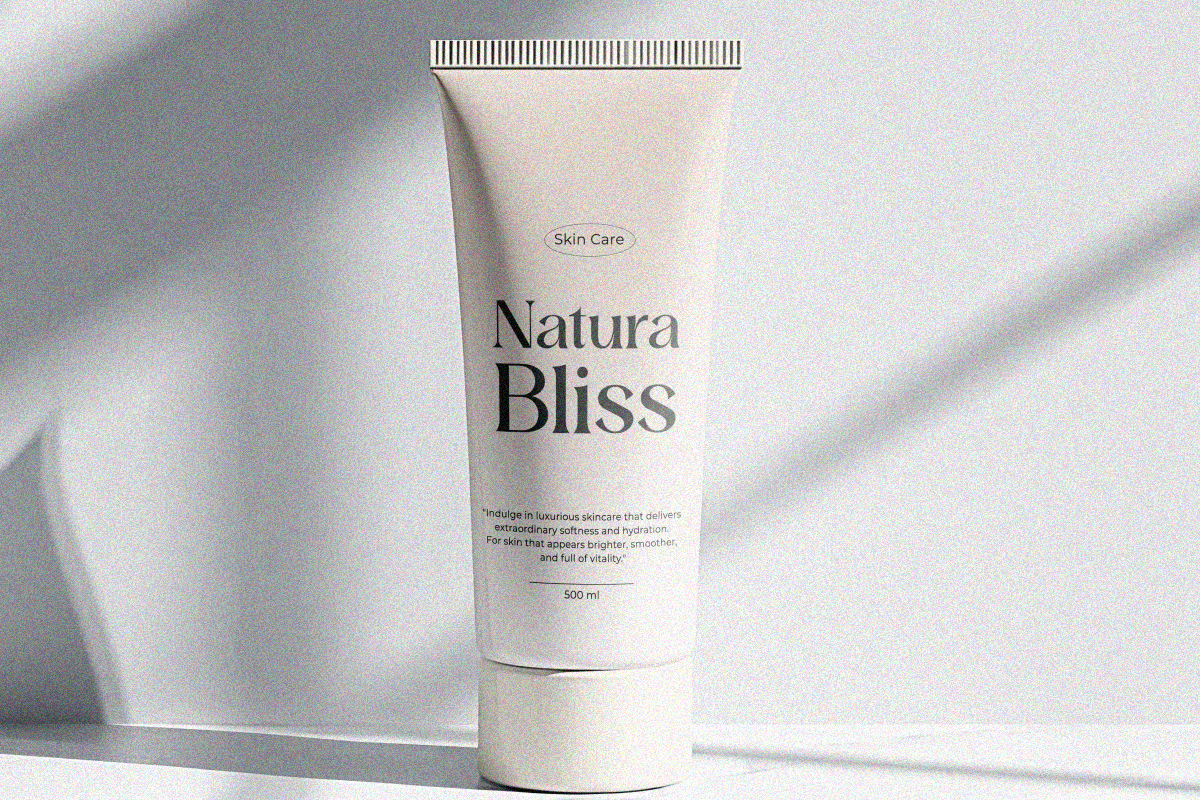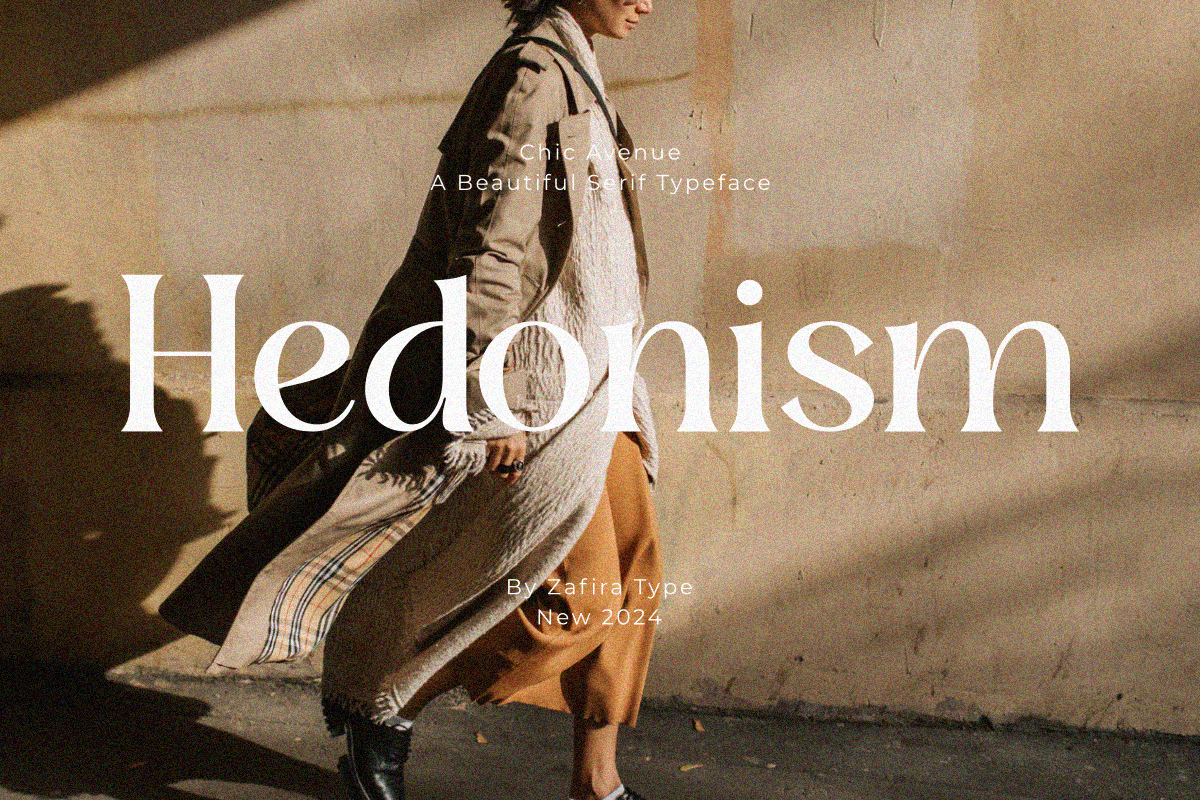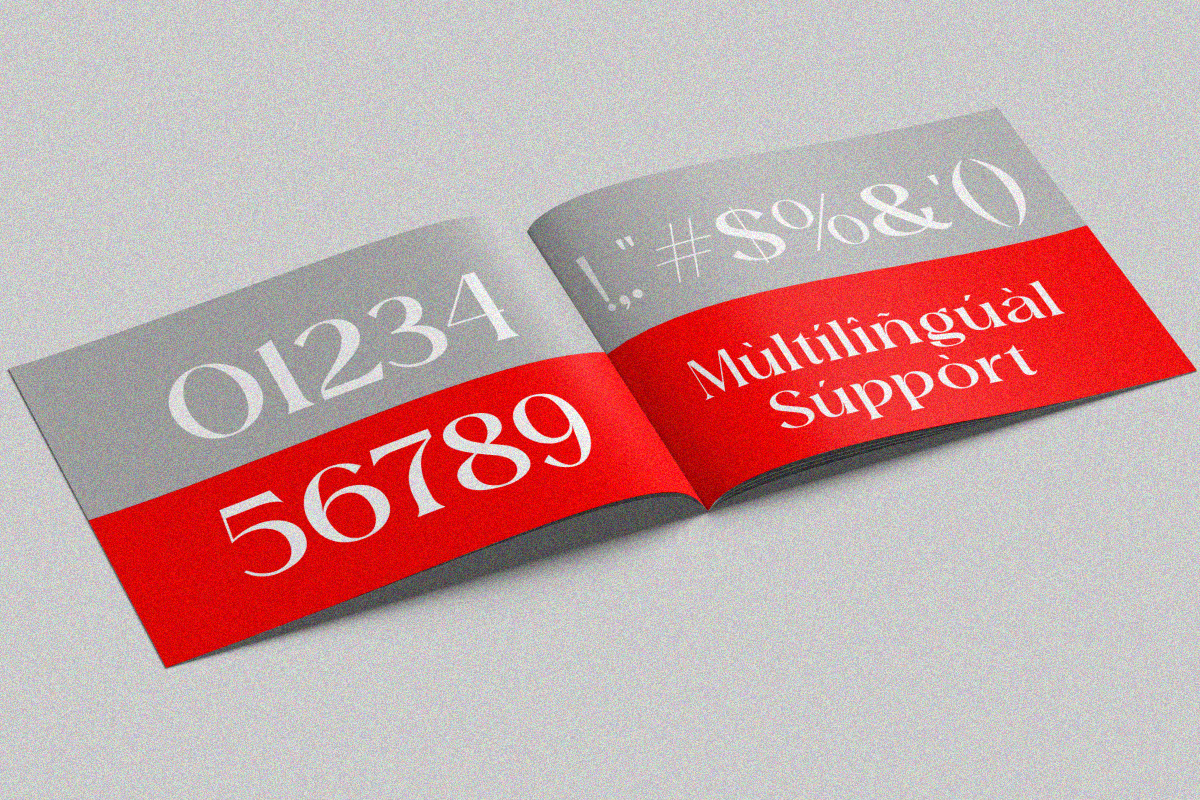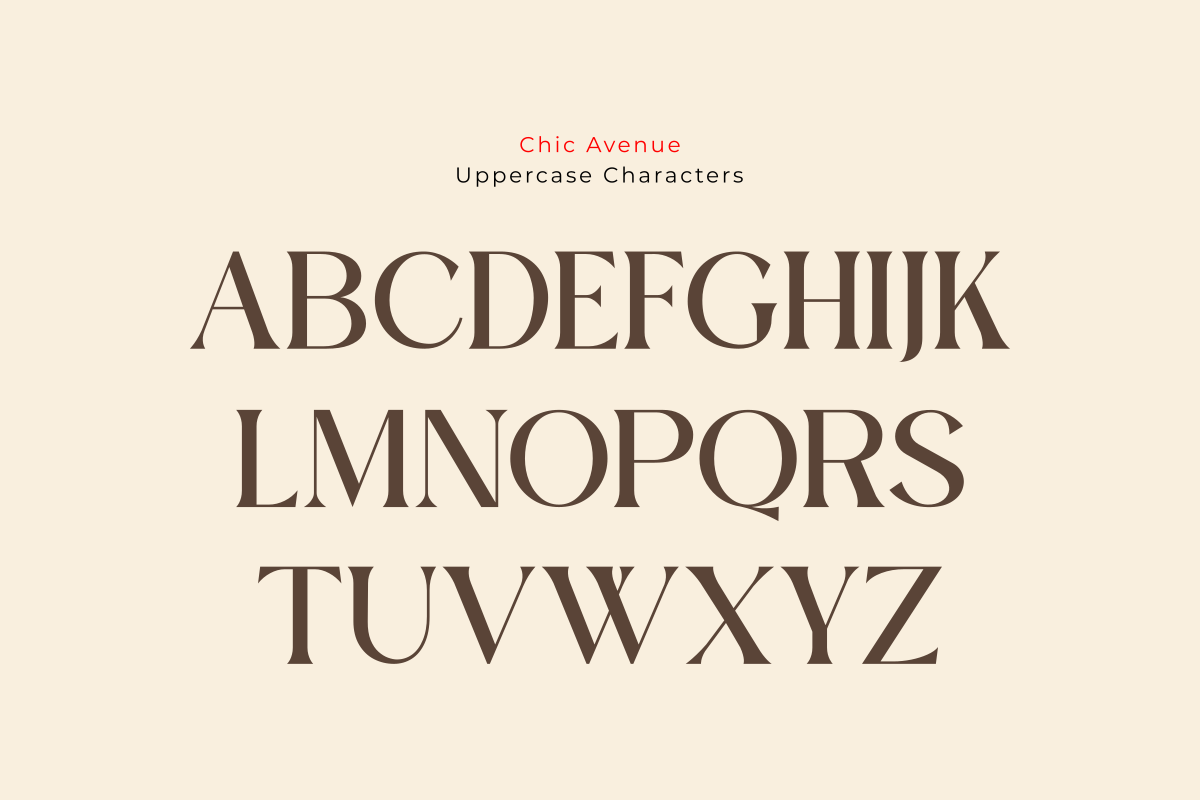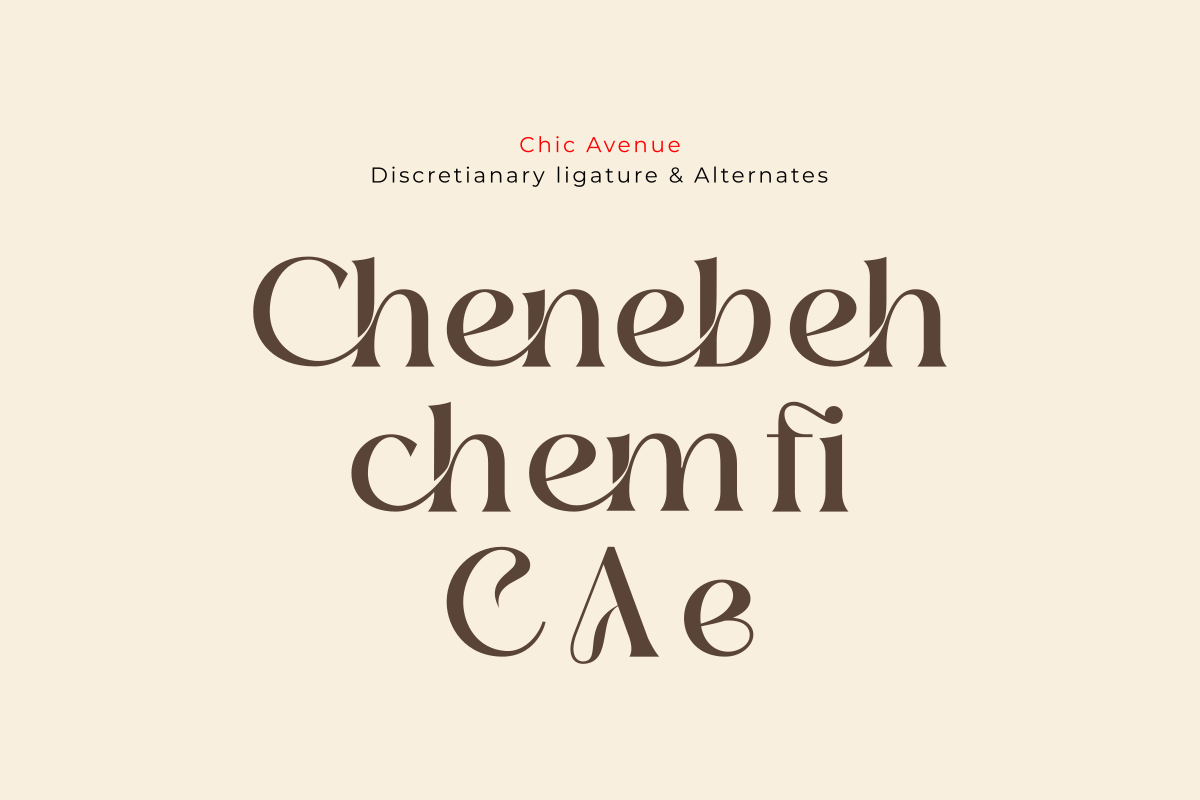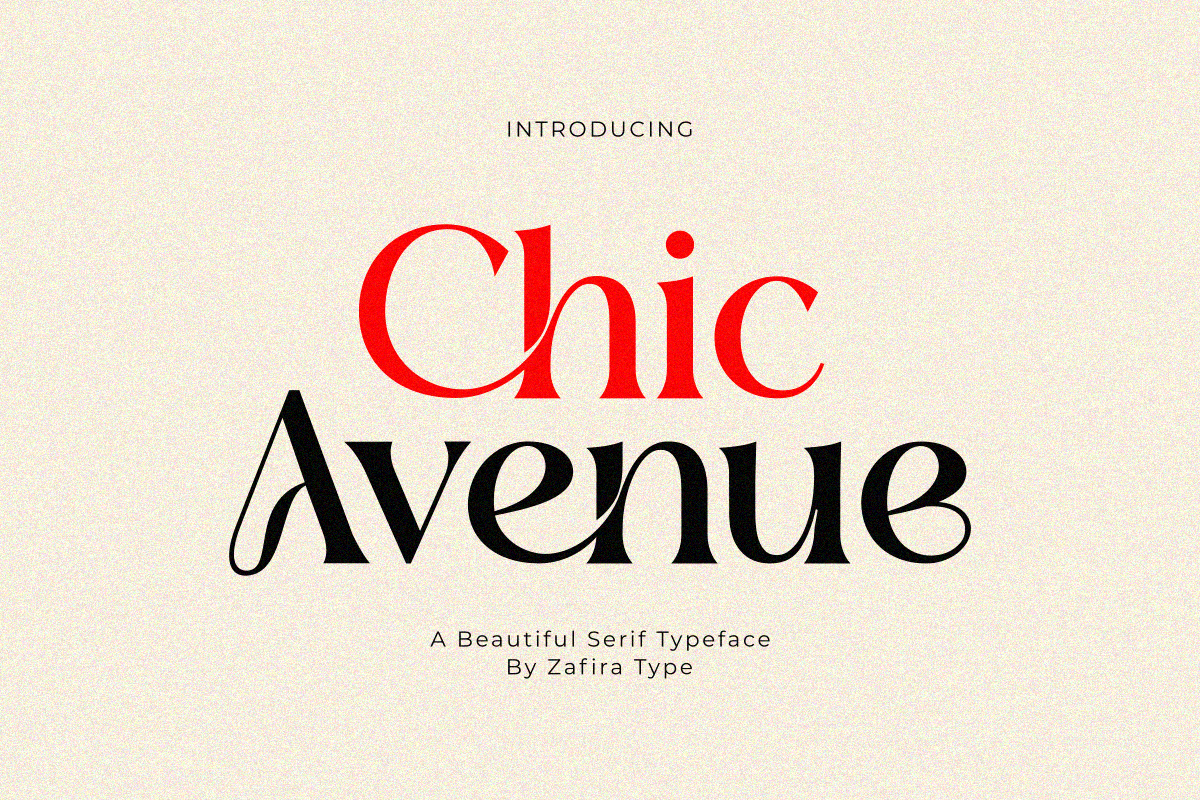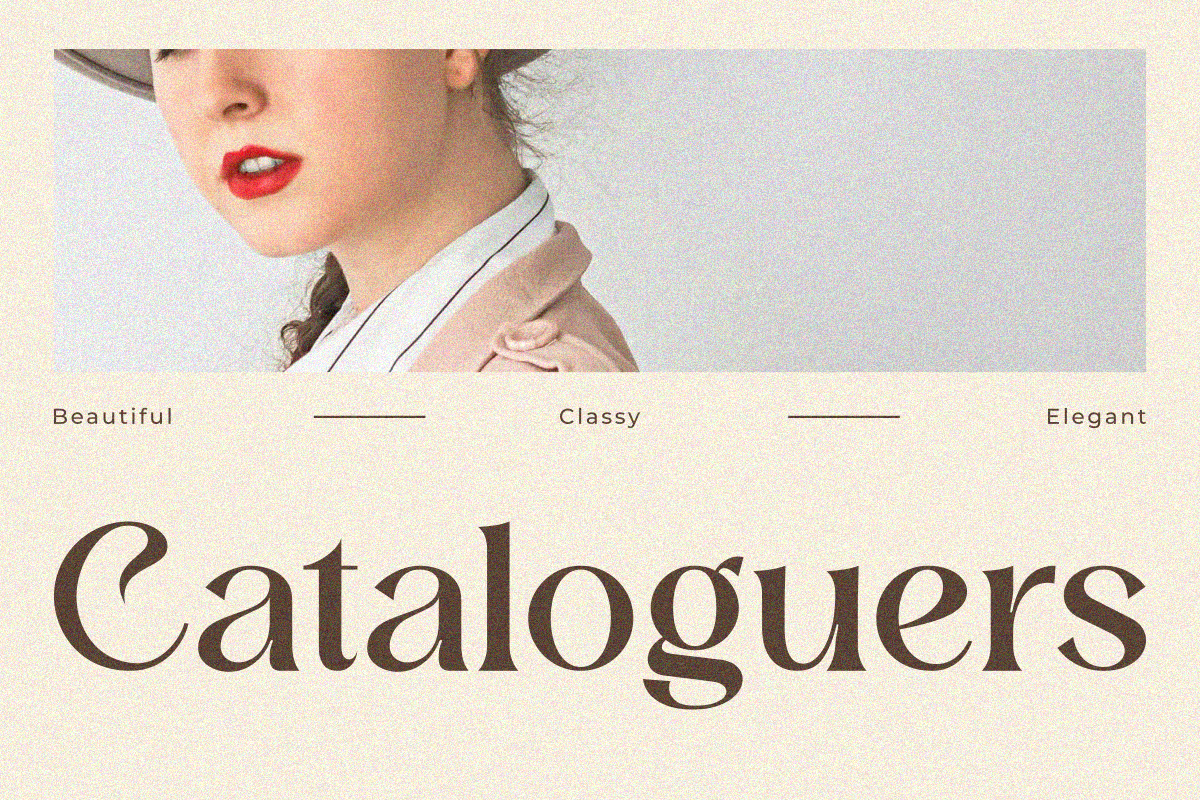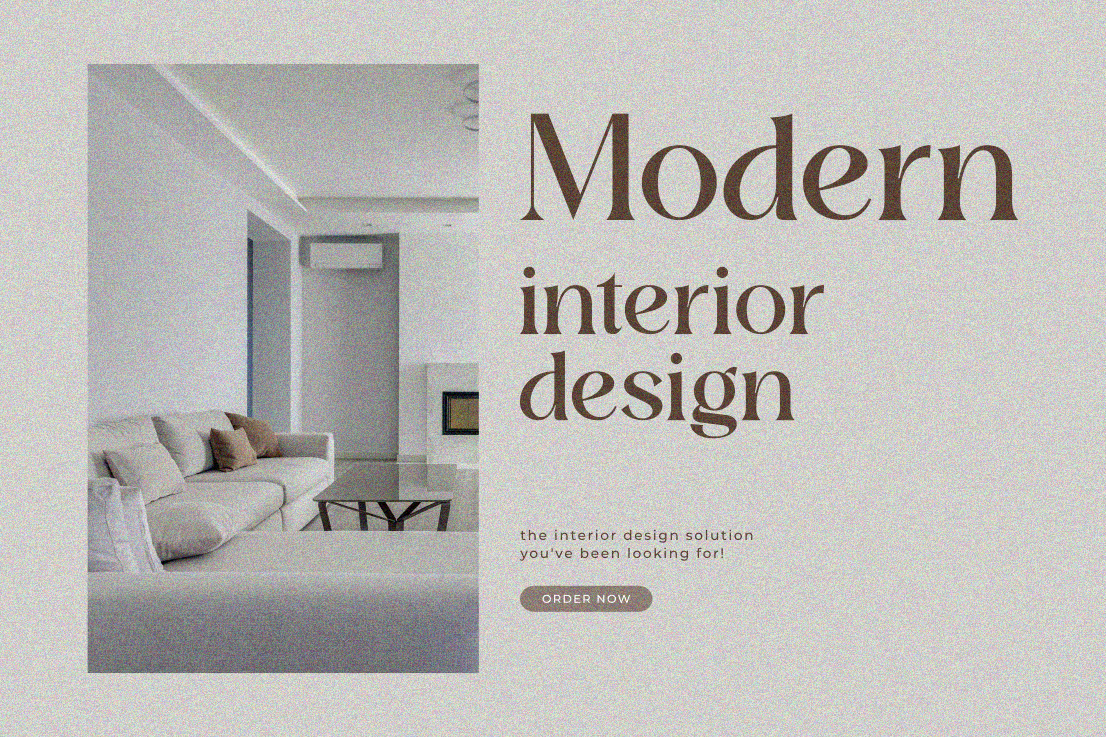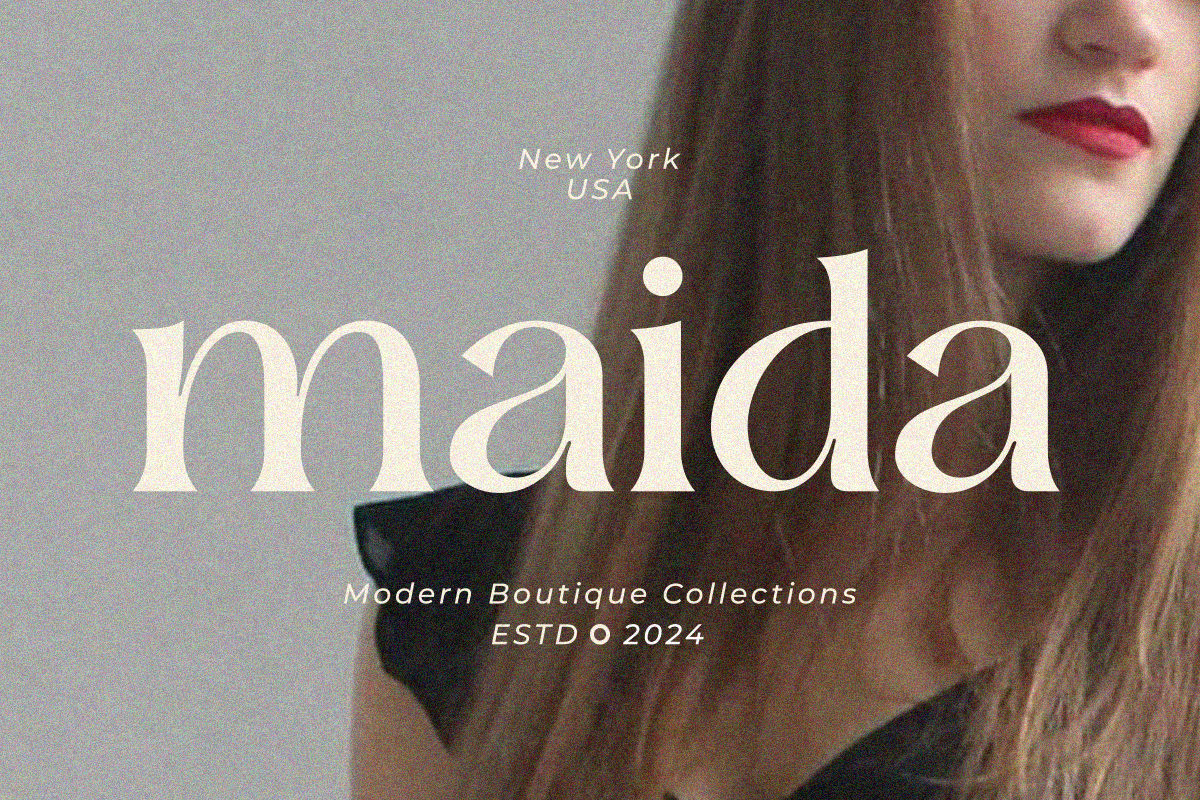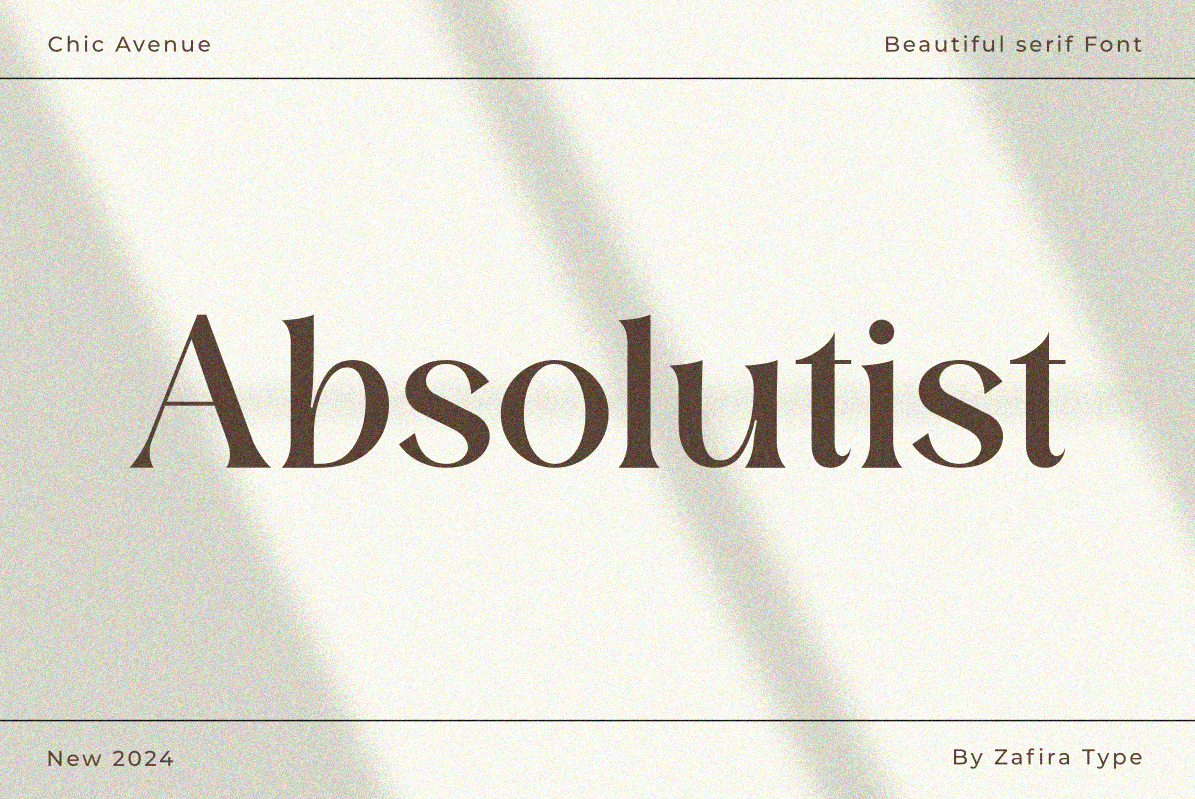
Chic Avenue
Chic Avenue is a beautiful, elegant serif font with smooth curves in every character. It exudes a luxurious yet readable feel, making it perfect for branding, logos, invitations, and marketing designs. With a blend of classic and contemporary appeal, Chic Avenue adds an elegant touch to any design project, enhancing professionalism and sophistication
Standart Glyphs
Numberial and Functional
Ligature and alternate